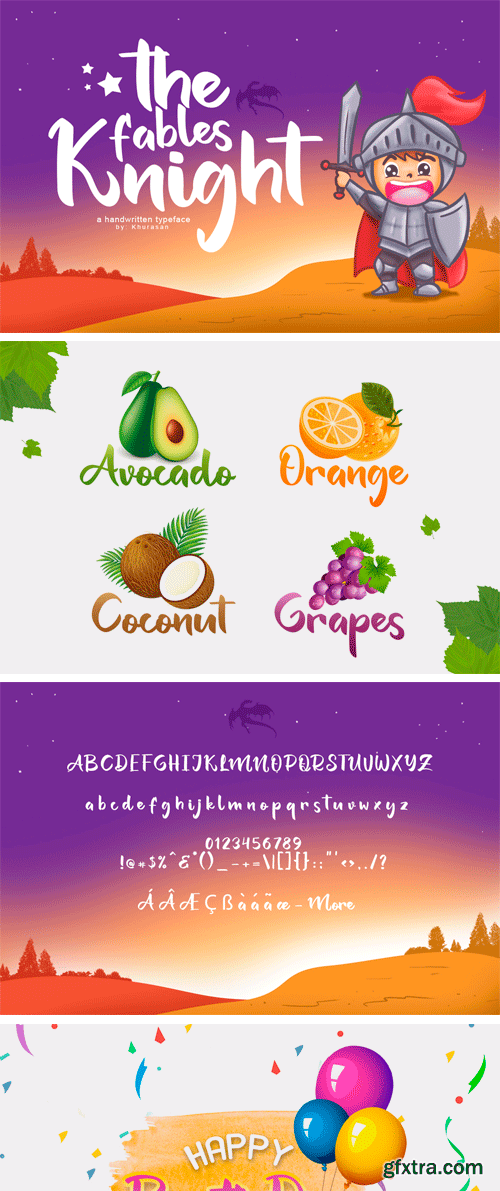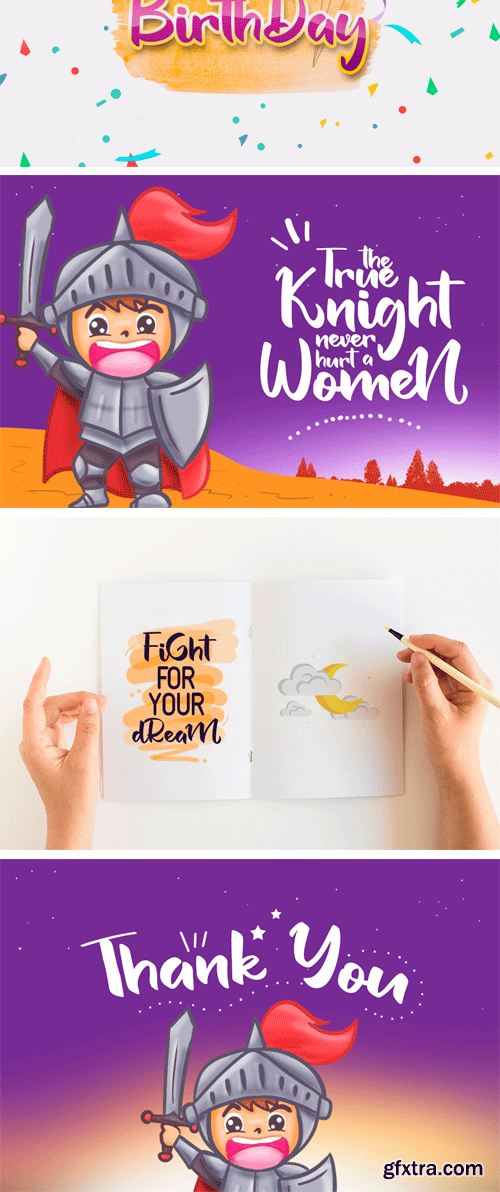
Introducing, The Fables Knight font a bold script typeface with cheerful theme for your fun project.The Fables Knight font suitable for logo, branding, greeting card, poster and any design that you create.